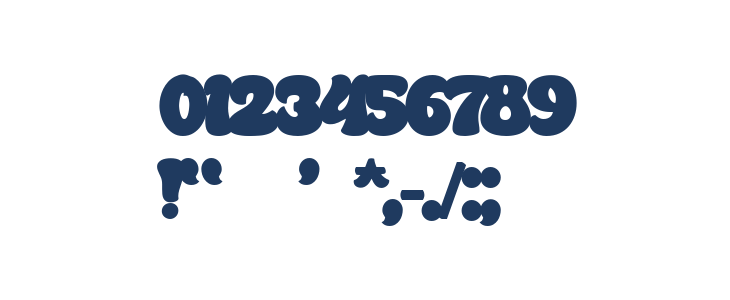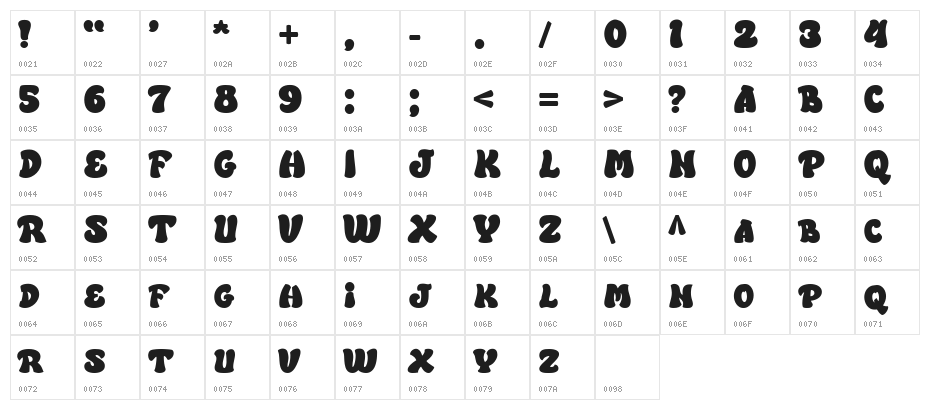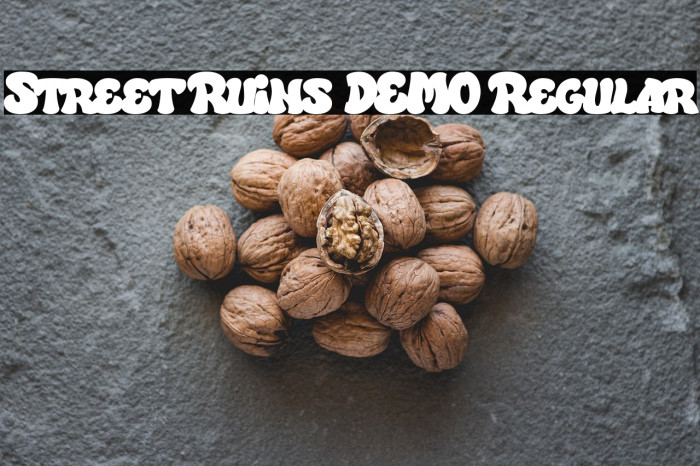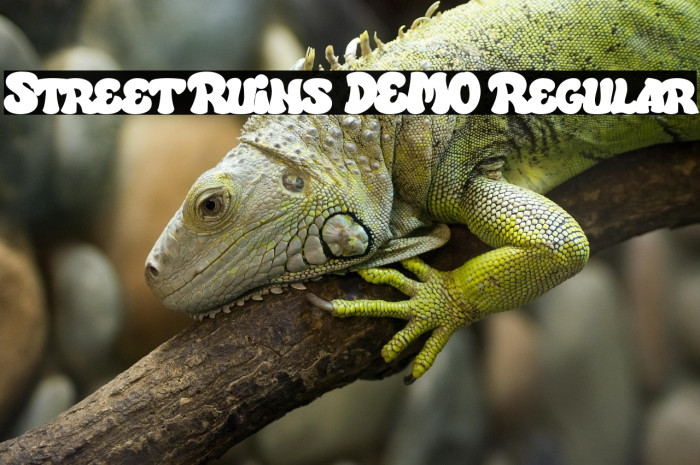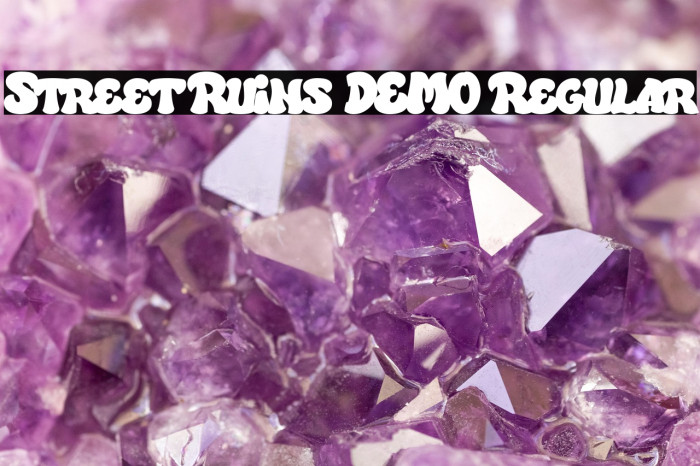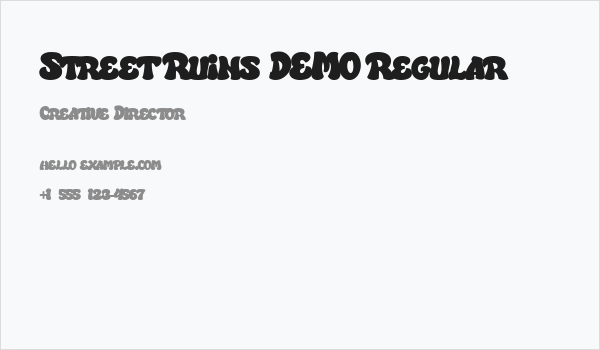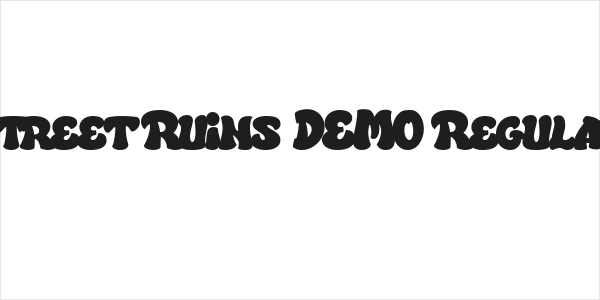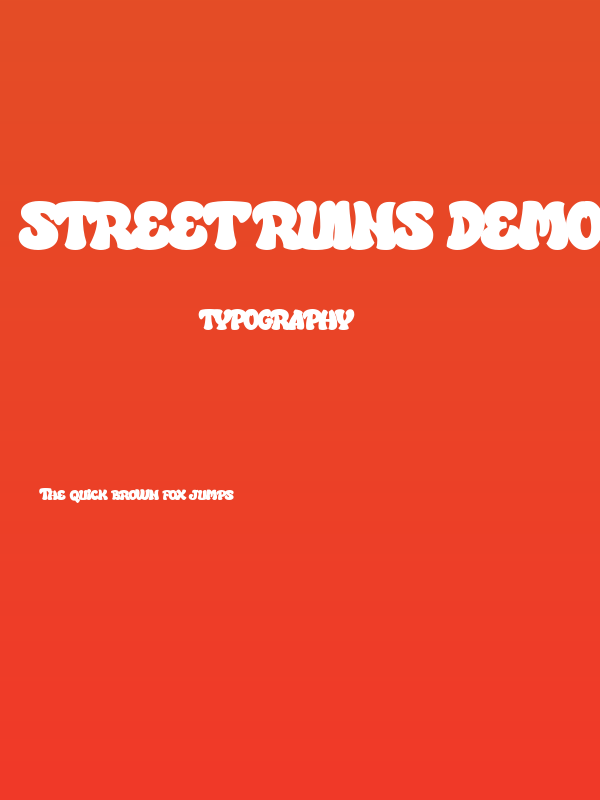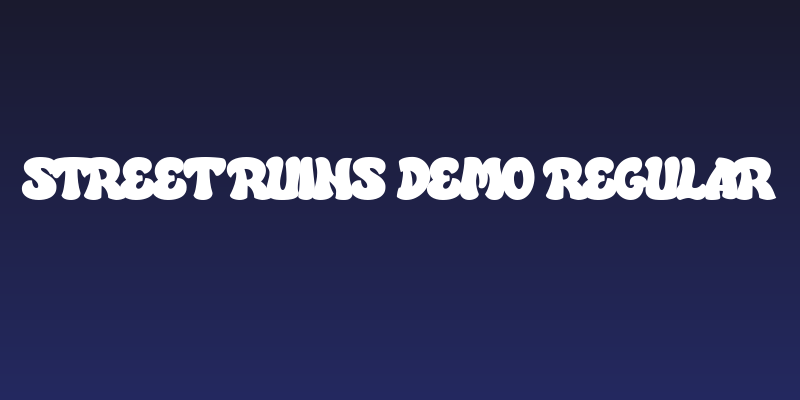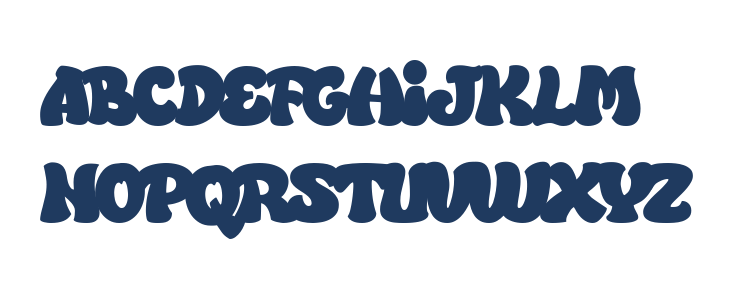
Street Ruins DEMO Regular Font
Street Ruins DEMO Regular Description
This font features a bold and playful style with a strong presence. The characters are heavily rounded and exhibit a bubbly, graffiti-like appearance, making them stand out with a unique flair. The strokes are thick and consistent, giving the font a cohesive and robust look. The overall design is informal and energetic, suitable for creative and dynamic projects. The font's playful nature is emphasized by its exaggerated curves and rounded edges, which contribute to its distinctive and eye-catching aesthetic.
Proposed ProjectsIdeal for street art designs, posters, event flyers, and branding projects that require a bold and playful touch.